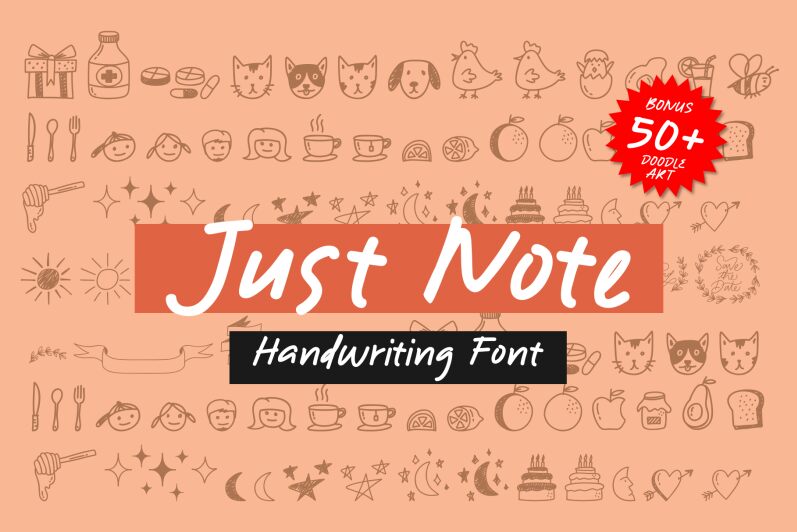
Note Doodle Demo
Note Doodle font designed by Java Pep is a whimsical decorative dingbat collection. It includes simple and playful hand-drawn illustrations in the doodle-style that most people are familiar with. Presenting lighthearted quirky outlines, in simple shapes, this free set embodies creative imagination.
Use it for hand-illustrated greeting cards, stationery accessories, badges, icons, boarding passes design mockups, notebooks customization mockups and personalization projects among other print and digital media platforms.